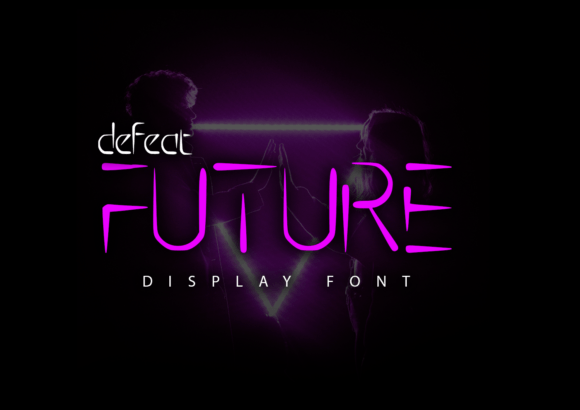
Get Ready to Design the Future
Have you ever been working on a project, and suddenly, a spark of creativity hits you? Maybe it’s the perfect combination of colors, or the way a font seems to leap off the page. For designers, those moments are what make all the hard work worth it. And when you’re looking for a font that can help you create that ‘aha!’ moment, Defeat Future Font is the perfect choice.
With its futuristic vibe and inspiration from innovative machines, Defeat Future Font is the perfect tool for designers who want to add a contemporary and fresh touch to their projects. Whether you’re working on a sci-fi movie, a futuristic video game, or a cutting-edge tech startup, Defeat Future Font will help you create a robotic, high-tech look that’s sure to impress.
Defeat Future Font Key Features
- Font Family: Defeat Future is a sans-serif font family designed for modern and futuristic typography.
- Character Set: Includes a wide range of characters, including Latin, Cyrillic, and Greek alphabets, as well as punctuation and symbols.
- Unique Characteristics: Features a distinctive, geometric design with clean lines and rounded edges, giving it a unique and futuristic look.
- Font Styles: Includes a range of font styles, including Regular, Bold, Italic, and Bold Italic, allowing for versatility in typography.
Defeat Future Font Review
Overall, I’m quite impressed with the “Defeat Future Font”. It’s a unique and futuristic font that can add a lot of edge to any design project. Here are some things that work well:
- ✨ Unique aesthetic: The font has a distinctive, cyberpunk-inspired look that’s sure to turn heads.
- ✨ High legibility: Despite its futuristic design, the font is surprisingly easy to read, even at small sizes.
- ✨ Versatility: The font comes in a range of weights and styles, making it suitable for a variety of design applications.
Overall, I’d say the “Defeat Future Font” is a great choice for designers looking for a bold, futuristic look. While it may have some limitations, the font’s unique aesthetic and high legibility make it a solid addition to any design toolkit.
Tips for Getting the Most Out of Defeat Future Font
Here are some tips for getting the most out of Defeat Future Font:
- Use it for titles and headings to create a bold and eye-catching effect
- Pair it with other fonts to create a unique and interesting typography
- Experiment with different font sizes and styles to create a dynamic effect
Here are some common use cases for Defeat Future Font:
- Graphic design for marketing materials (e.g. brochures, flyers
Alternatives to Defeat Future Font for Designers